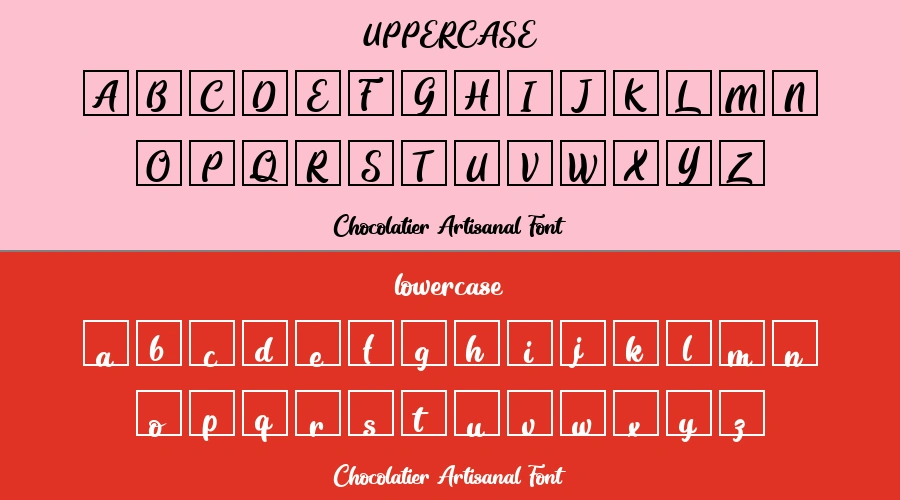
About Chocolatier Artisanal Font
Designed with precision, Chocolatier Artisanal Font merges hand-drawn quality with exceptional clarity in every character. This versatility makes it particularly effective for annual reports, where clarity and cultural resonance directly impact communication quality. Each letterform demonstrates meticulous craftsmanship.
Technical excellence shines through elements like measured spacing and contextual ligatures, enhancing typographic versatility. In exhibition titles settings, Chocolatier Artisanal Font proves its worth through superior symbol integration. The thoughtful execution of stroke modulation and professional recognition ensures professional results.